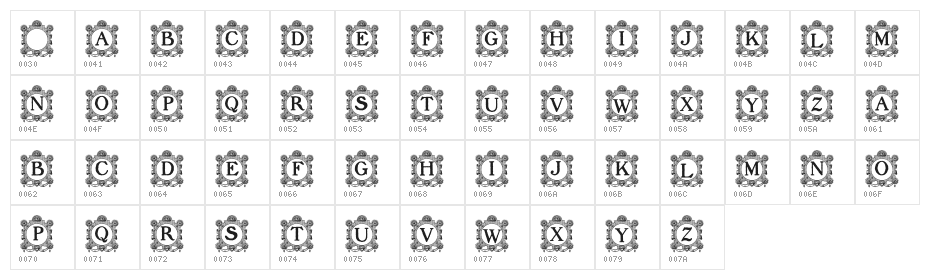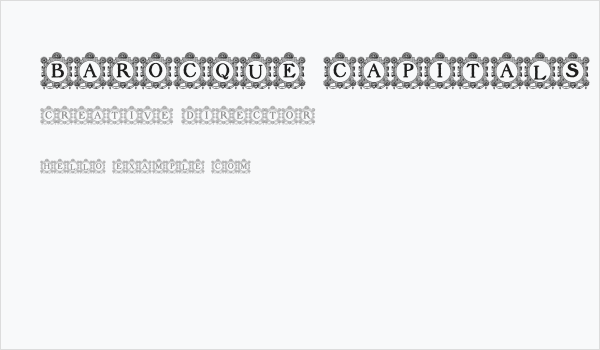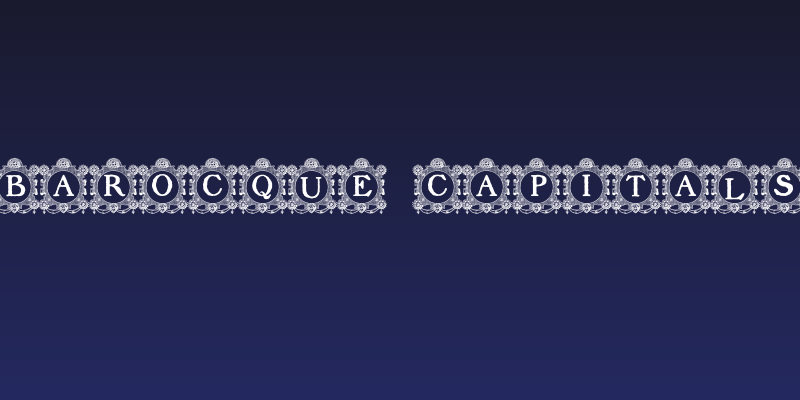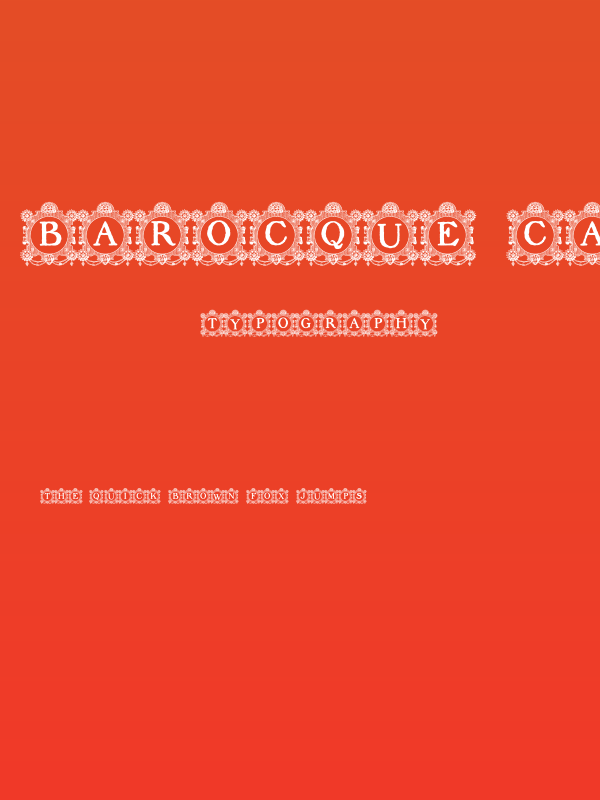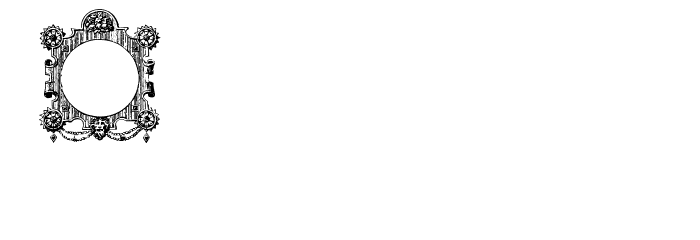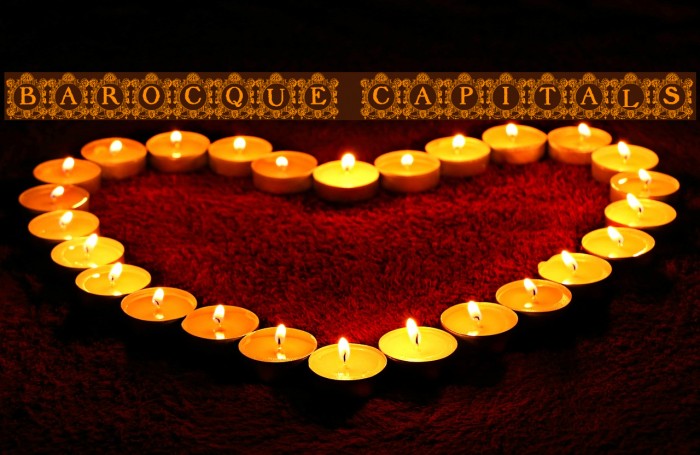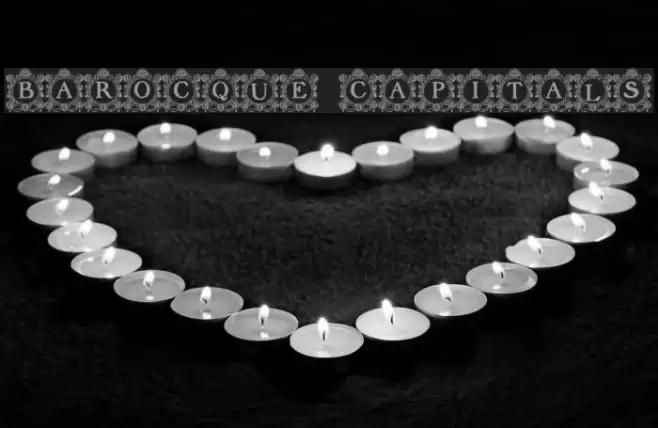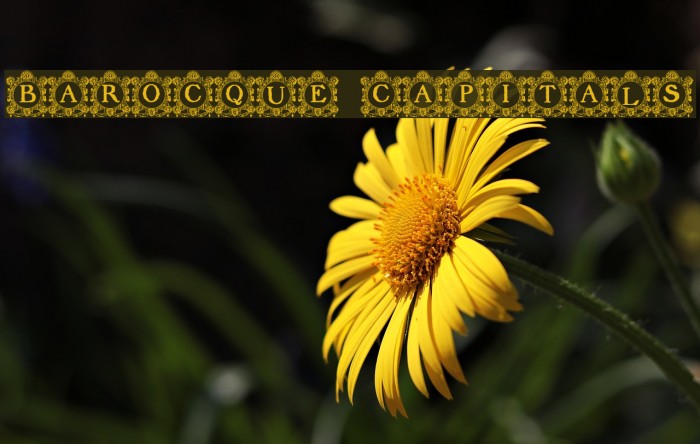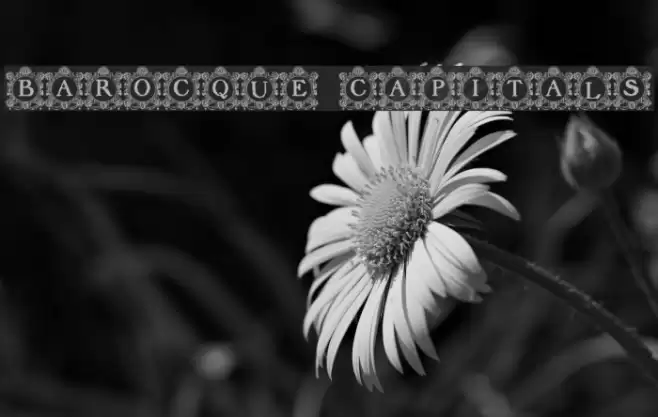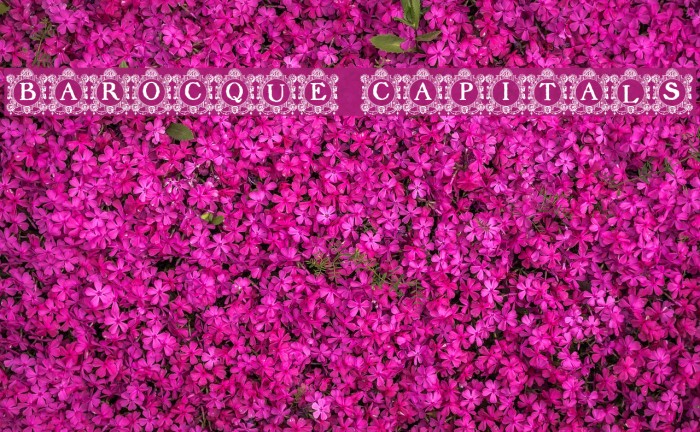
Barocque Capitals Font
Barocque Capitals Description
This font is an ornate and decorative typeface, characterized by its elaborate and intricate design. Each letter is encased in a detailed, baroque-style frame, featuring floral and scroll motifs that evoke a sense of grandeur and elegance. The letters themselves are bold and serifed, standing out against the complex backgrounds. This font is reminiscent of historical manuscripts and classical architecture, making it ideal for projects that require a touch of sophistication and historical flair.
| Overall Style | Vintage |
| Use Case | Logos, Decorative headings, Invitations |
| Proposed Projects | Ideal for wedding invitations, historical event posters, luxury brand logos, and decorative book covers. |